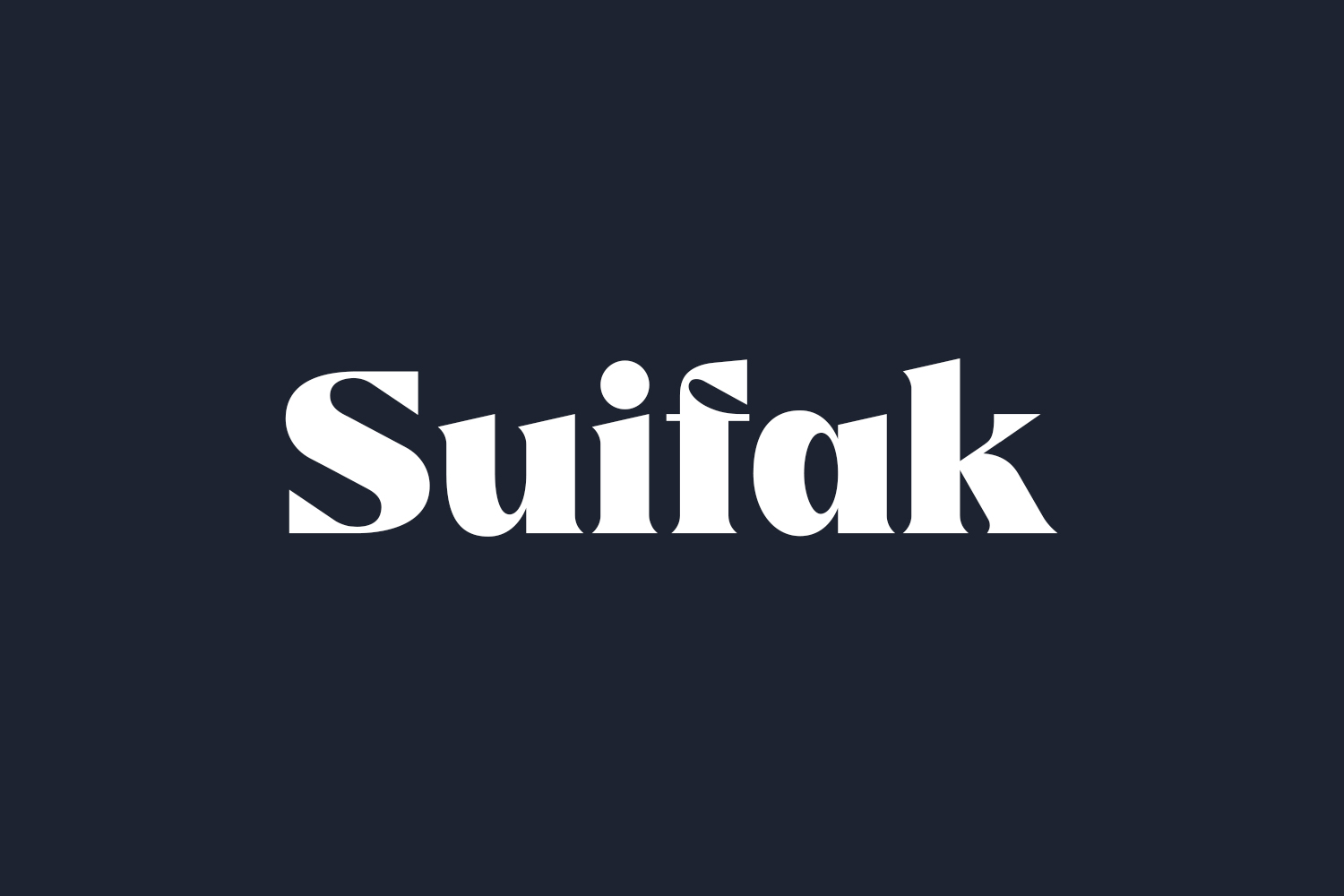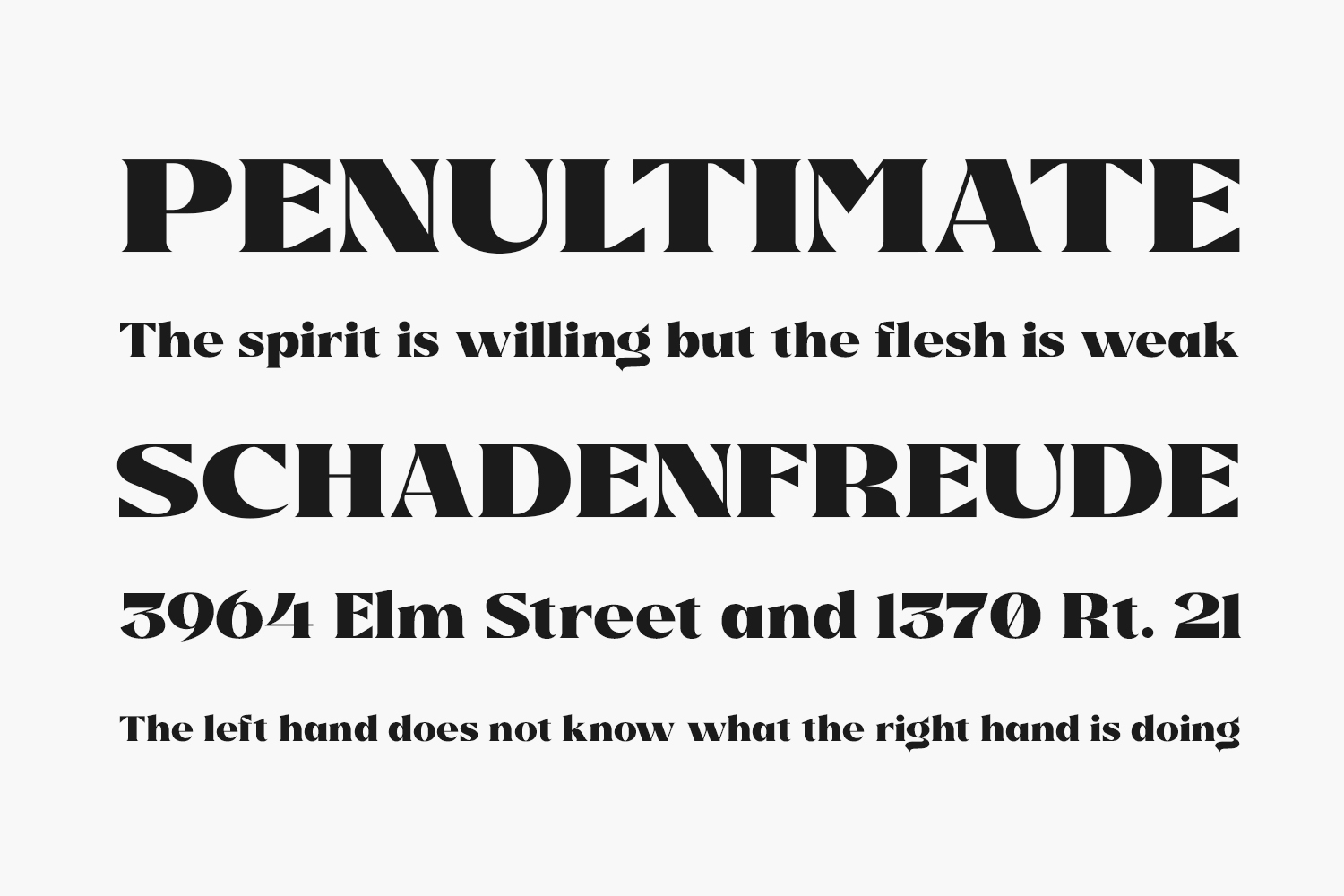
Suifak Free Font embodies a blend of modernity and classic elegance, boasting a distinctive style and a trendy allure. Ideal for crafting sophisticated and opulent logos, captivating book or movie titles, chic fashion brands, captivating magazines, stylish apparel, exquisite lettering, memorable quotes, and beyond. Download the font for free if you need it for personal use or purchase the full version for commercial use.